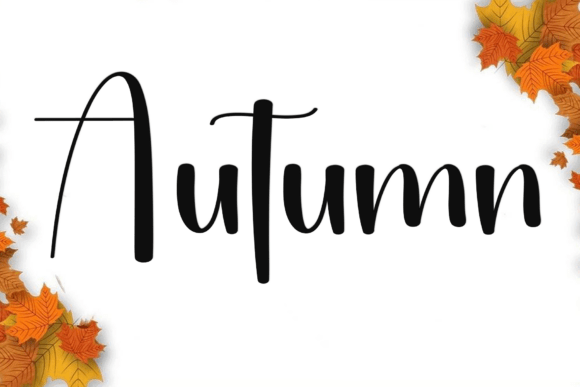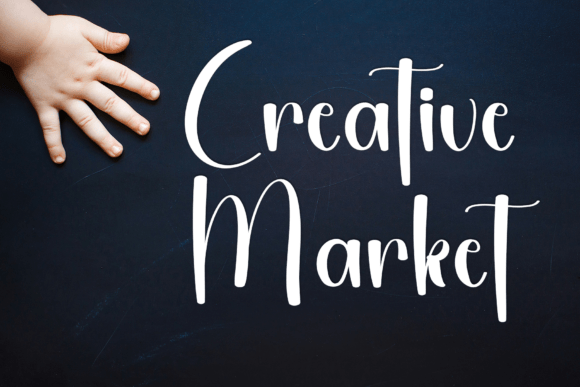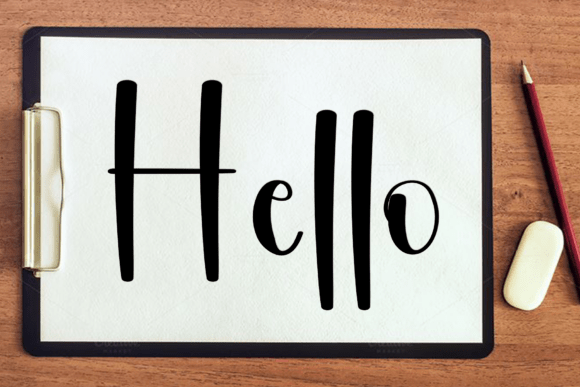
Introducing Bookmark Handwriting Font: Elevate Your Designs with Elegance and Personality
In the world of digital design, fonts play a crucial role in conveying the tone and aesthetic of a project. For designers and crafters looking for a typeface that combines elegance, personality, and versatility, Bookmark Handwriting font is an exceptional choice. This clean and charming modern calligraphy font is designed to bring a personal yet professional touch to a wide range of projects, from planners and journals to branding, wedding stationery, logos, and social media content.
The Characteristics of Bookmark Handwriting Font
Bookmark Handwriting font boasts several distinctive features that set it apart from other typefaces. Its tall letterforms, subtle flourishes, and smooth rhythm give it a natural elegance that feels both casual and polished. This unique blend of characteristics makes it perfect for designers who want to add a friendly, graceful presence to their layouts. Whether you’re working on a project that requires a touch of sophistication or a dash of whimsy, Bookmark Handwriting font is up to the task.
One of the standout qualities of Bookmark Handwriting font is its versatility. It’s stylish without being overly ornate, making it suitable for a wide range of applications. From everyday designs like social media content and blogs to special moments like wedding stationery and event branding, this font adapts seamlessly to any project. Its refined finish and handwritten soul ensure that it always brings a touch of warmth and personality to your designs.
Crafted for Readability and Expressiveness
Bookmark Handwriting font is crafted with readability and expressiveness in mind. Its beautifully simple design makes it easy to read, even at smaller sizes, while its elegant letterforms and subtle flourishes add a touch of sophistication. This font is perfect for designers who want to create visually appealing text that also communicates a sense of warmth and approachability.
PUA-Encoded for Effortless Access
Bookmark Handwriting font is PUA-encoded, which means that it includes a range of glyphs, swashes, and alternate characters that can be accessed effortlessly. This feature makes it easy to customize your text and add unique touches to your designs. With Bookmark Handwriting font, you can create stunning text that stands out from the crowd and reflects your personal style.
Applications for Designers and Crafters
Bookmark Handwriting font is an excellent choice for a wide range of projects, including:
- Planners and journals: Add a personal touch to your planners and journals with this elegant font.
- Branding: Use Bookmark Handwriting font to create a unique and memorable brand identity.
- Wedding stationery: Bring a touch of romance and sophistication to your wedding stationery with this beautiful font.
- Logos: Create a stunning logo that reflects your brand’s personality with Bookmark Handwriting font.
- Social media content: Elevate your social media content with this elegant and readable font.
In conclusion, Bookmark Handwriting font is an exceptional choice for designers and crafters looking for a typeface that combines elegance, personality, and versatility. Its unique characteristics, versatility, and PUA-encoded features make it perfect for a wide range of projects. Whether you’re working on a personal or professional project, Bookmark Handwriting font is sure to bring a touch of sophistication and warmth to your designs.